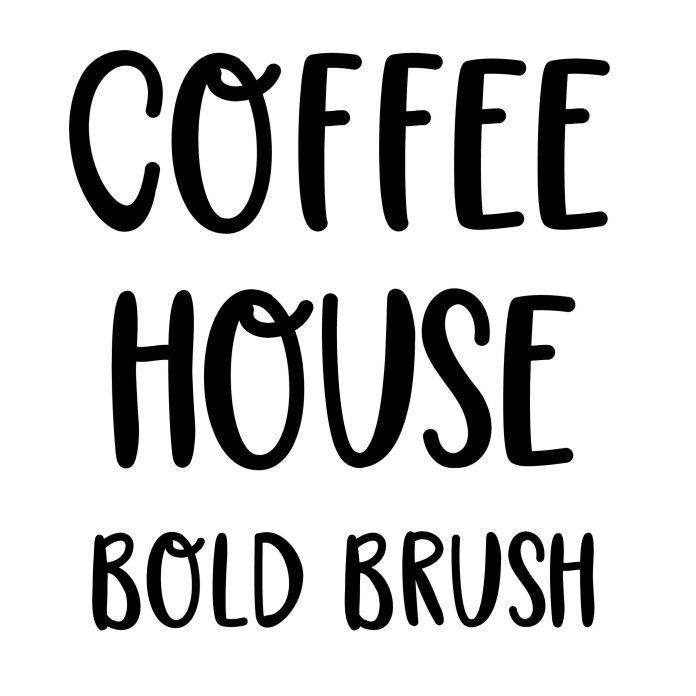
Coffee house bold brush font
Cute bold brush marker handwriting font fun for holiday crafts, planner, notes, signs, cards, and personalization projects. All caps.